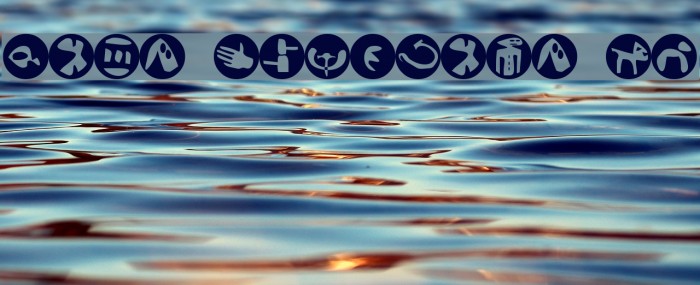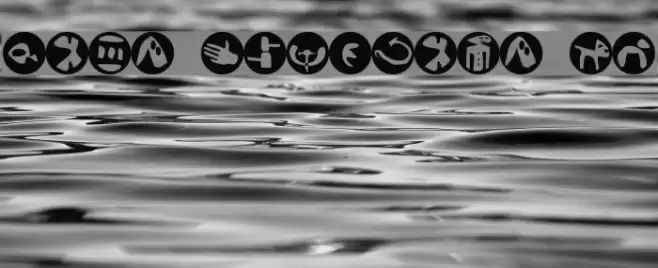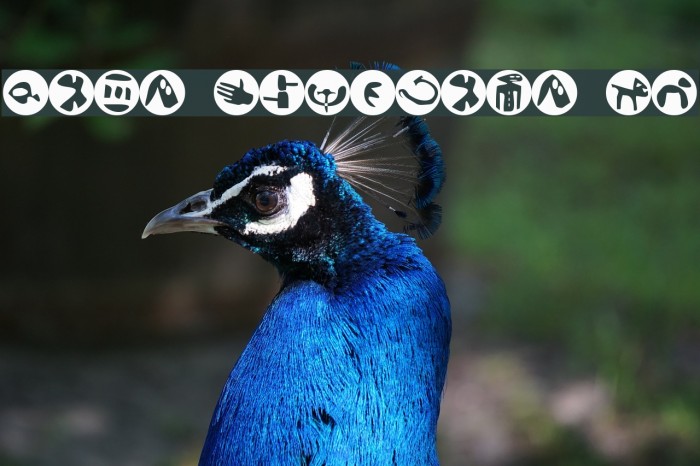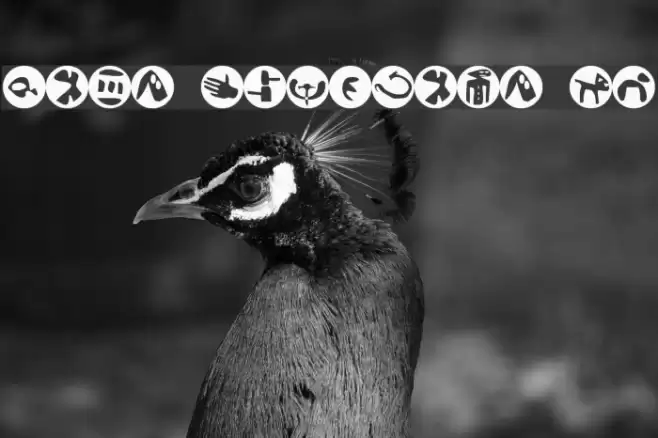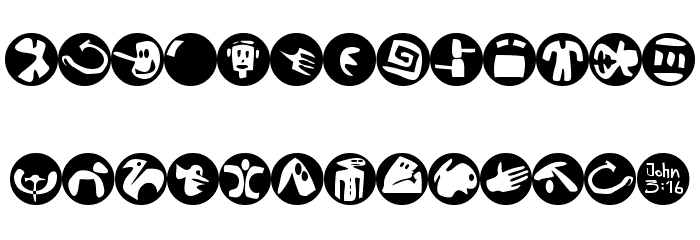
Sam's Dingbats No.2 Font
| 用途 | Logos, Decorative elements, Creative projects |
| おすすめプロジェクト | This font is perfect for creative projects such as designing logos, crafting unique invitations, or adding a whimsical touch to digital artwork. It can also be used in educational materials to engage young audiences or in branding to convey a playful and |